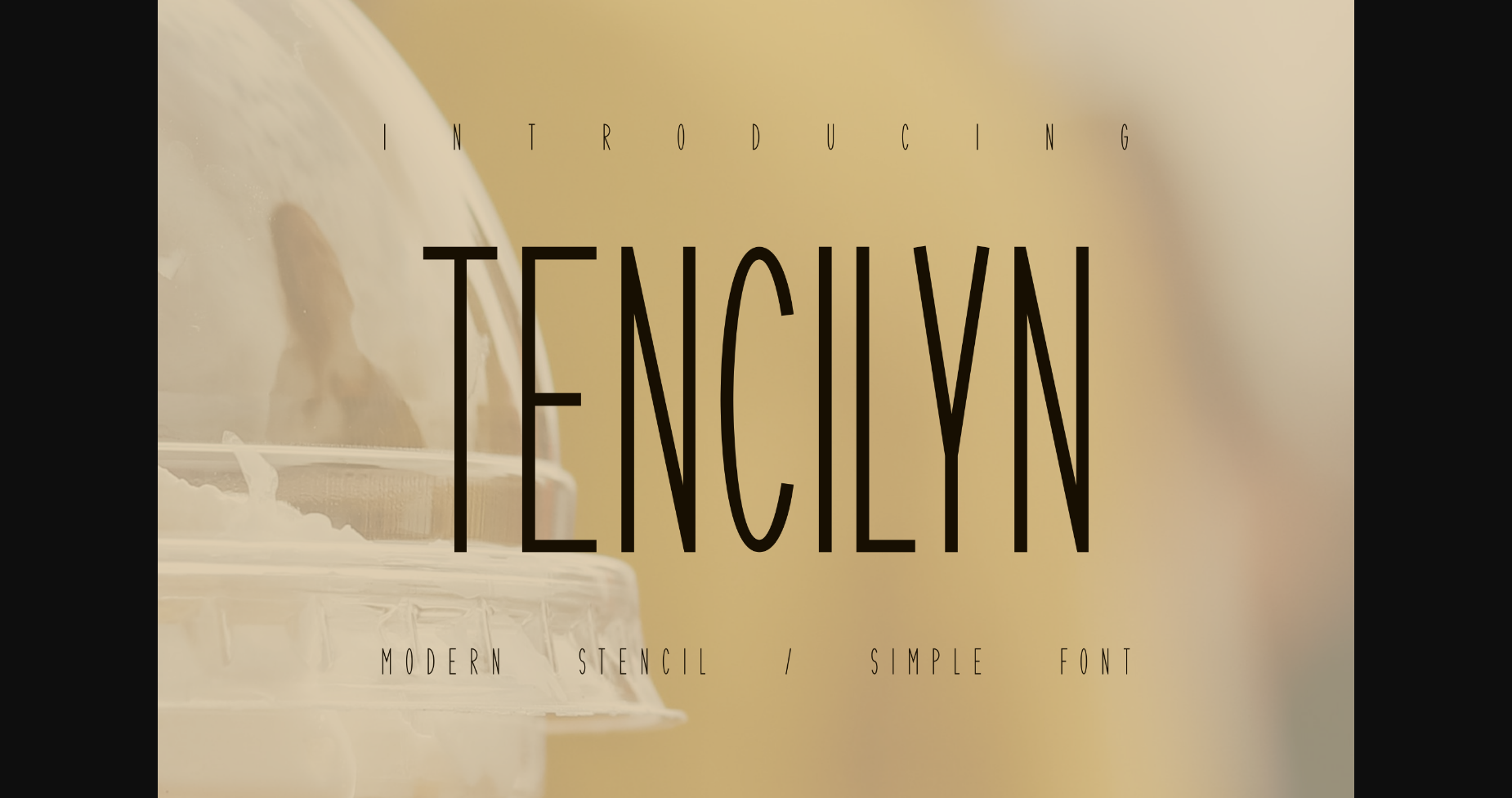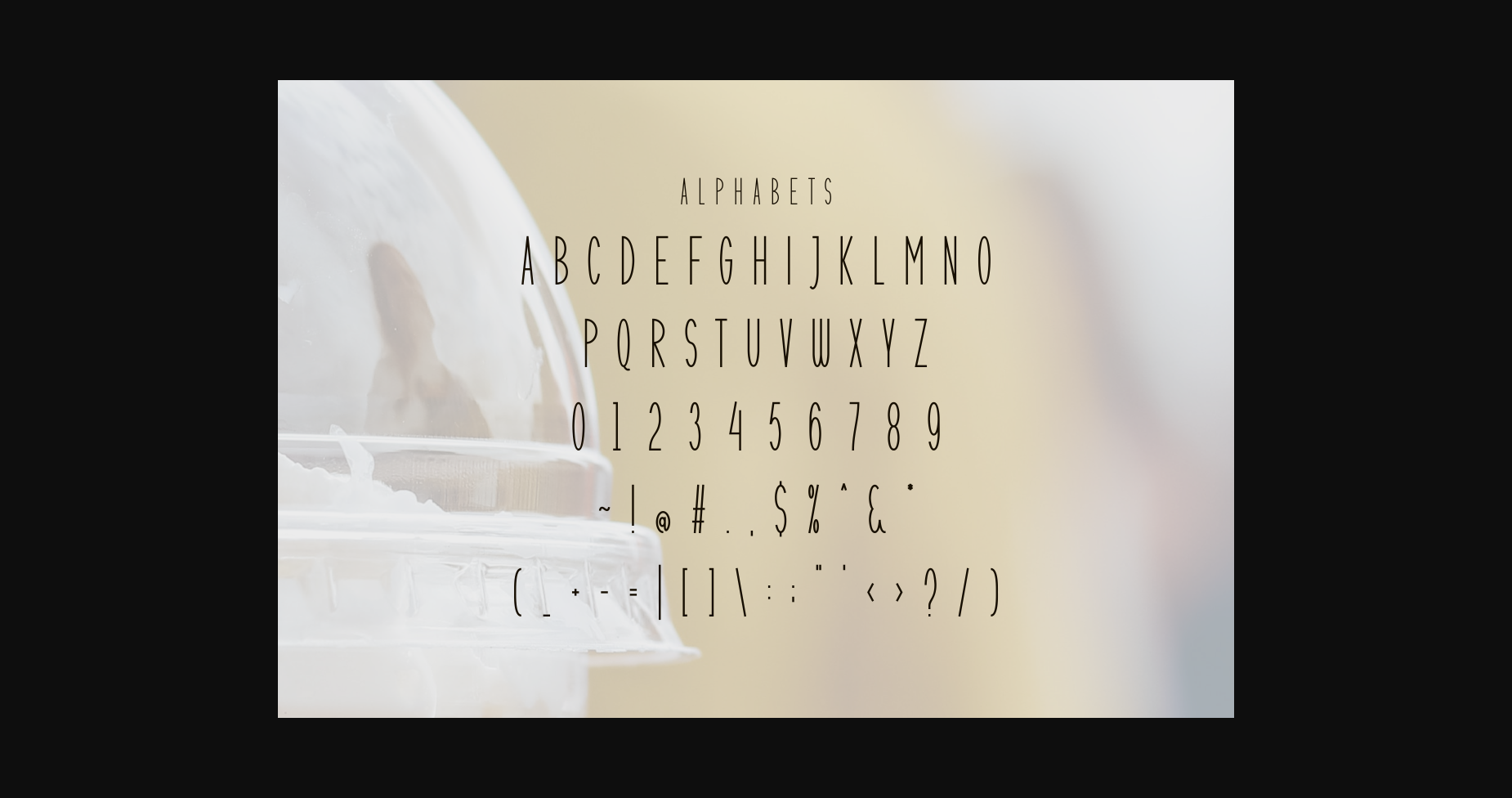
About Tencilyn Font
Tencilyn is a neat and elegant sans-serif font with thin letterforms that convey a sense of sophistication and simplicity. Its clean lines and balanced proportions make it highly legible and versatile for various design projects. Whether used in body text or headlines, Tencilyn adds a touch of refined elegance and modernity to any composition. Experience the understated beauty of Tencilyn today.